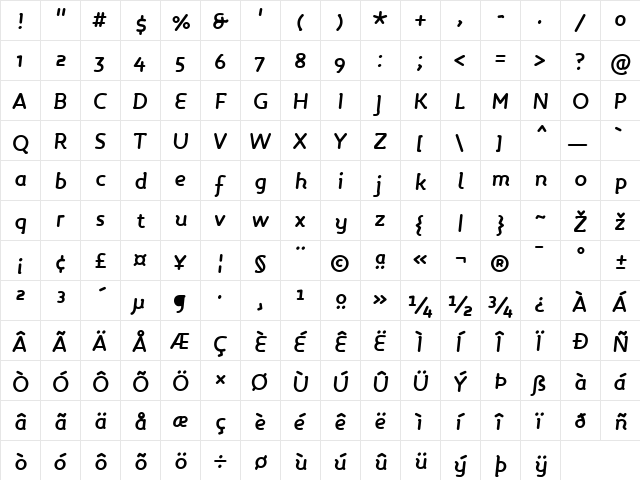
Roice-BoldItalic Regular Font Preview
| Foundry | Alex Scholing, published by FontShop International for the FontFont library |
Design Context for Roice-BoldItalic Typeface
Roice-BoldItalic takes a measured approach to typography — its balanced proportions and neutral character make it a reliable workhorse for both digital and print work. The slanted form adds forward momentum and visual energy. The heavy weight commands attention and anchors typographic hierarchies.